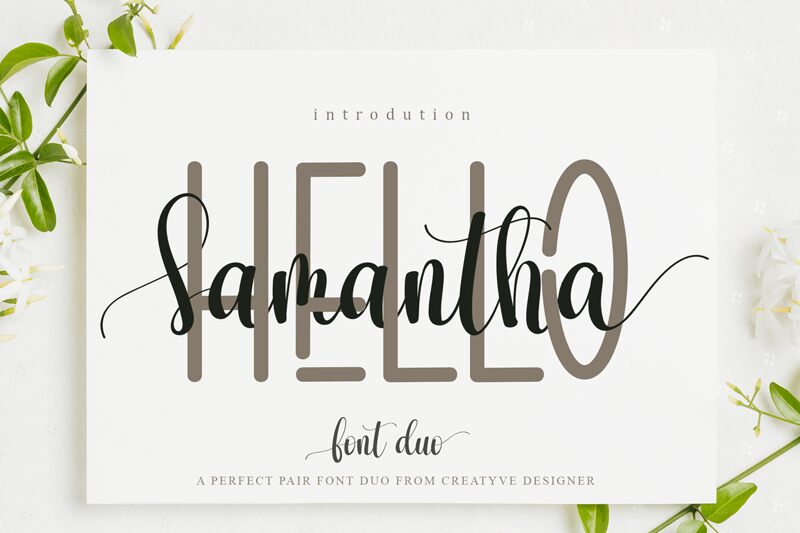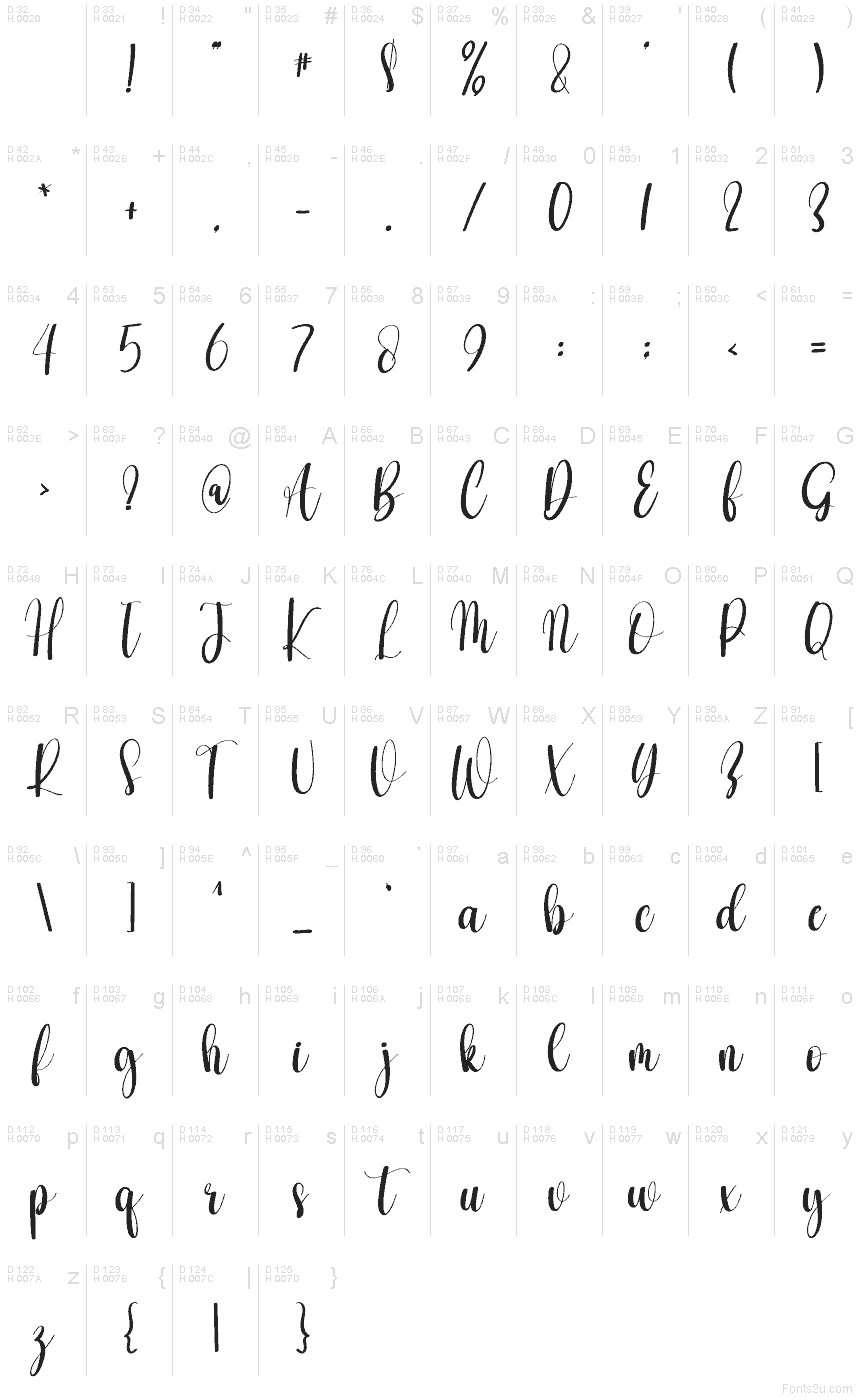
Hello Samantha
Hello Samantha font by creatype designer is a free calligraphy typeface with the easy charm of modern brush lettering. Its tall, looping strokes and slightly uneven inky texture feel hand-written, like a note dashed off with a favorite pen, while the flowing connections keep every word looking cohesive and romantic. There’s a light bounce in the rhythm that gives names, short phrases, and quotes a soft, personal warmth.
Using Hello Samantha, you can bring that handwritten elegance to wedding invitations, save‑the‑dates, logos for beauty or lifestyle brands, product packaging, social media posts, and greeting cards. This free font shines at larger sizes where the curls and swashes can really breathe; pair it with a clean sans serif for body text to keep layouts balanced and readable.